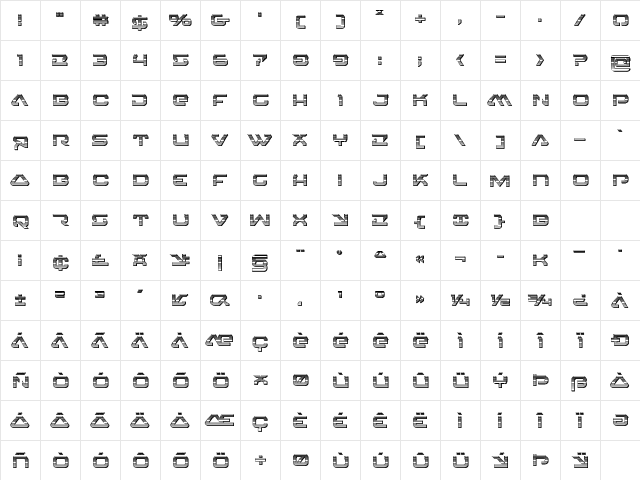
Complete 4114 Blaster Chrome Regular glyph index. Displaying only characters natively supported by 4114 Blaster Chrome Regular font.
4114 Blaster Chrome is a composed and adaptable typeface that performs quietly and consistently across a wide range of design contexts.